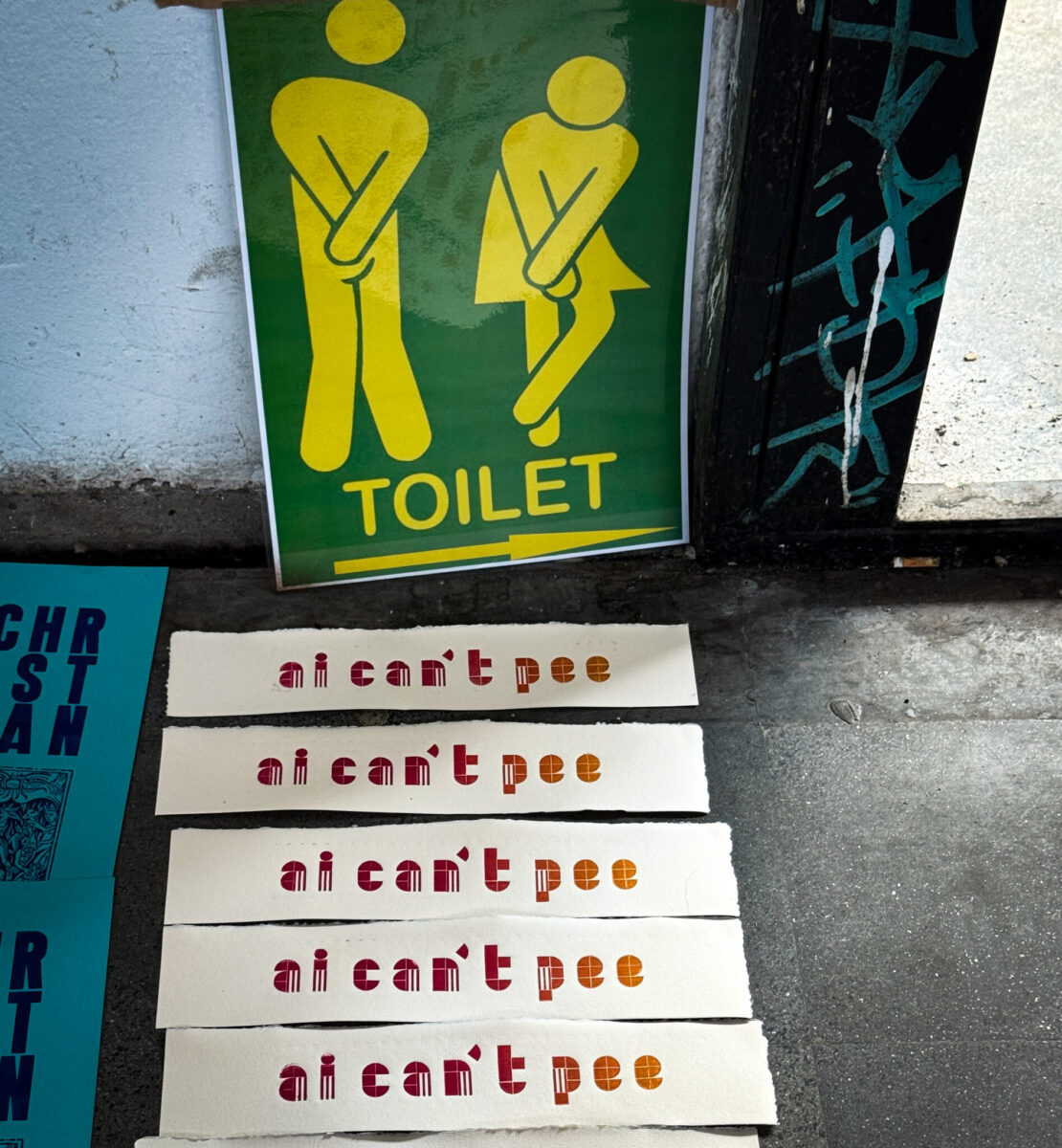
Silvia Potenza
Shah
Change bad things into good things
Milano, Italy
How long have you been printing?
In 2021
Describe your first encounter with letterpress
I hung around at Letterpress Workers in september 2022 at Leoncavallo, as I know Claudio Madella (Goodtypes) since 1999, and he invited me to come and have a look, because I had just started experimenting with printing the year before.
But my very first encounter has been in the early '80 when my father received many old boxes of big wood type characters as a gift. Then I lately had to give them away, but I kept some items with the idea one day to start using them. So, after 40 years, I did!
Where did you learn?
I just finished attending a couple of courses held by Claudio Madella, during the last year, and of course I learnt a lot during the latest editions of letterpress workers which I attended as a helper, and sometimes as a photographer/videomaker
Who was your most influential teacher?
I had a few at the graphic design school: Bruno Munari, Umberto Fenocchio (Lettering) and Romano Barboro (Typography)
What super power would you like to have?
To change bad things into good things, and irony, of which I definitely lack
Do you prefer to work alone or with others?
Both. When I'm alone I've got more time to focus on errors and refining the work, but working with others is unbeatable for so many reasons like growing, sharing, communication, fun and it's sooo powerful...
What do you most value in your friends?
That they are there
When do your best ideas occur to you?
In the early morning when I'm just awake and I haven't opened my eyes yet.
If you were to die and come back as a typeface, which would it be?
Any typeface with flourish and waves, so I guess some Art Nouveau type like Arnold Böcklin
What tool do you use more often than any other?
Pencil and Mac
What books are currently on your nightstand?
On my nightstand there is an indecent pile of books that I pretend to have the time to read.
Bodies of Water (Astrida Neimanis), Sea change (Sylvia Earle), and Dada - arte e antiarte (Hans Richter) are those I wish to finish by the end of summer. In the meantime, other titles will join the pile
If you could study with any printer throughout history, who would it be?
At the moment Alan Kitching, as I'm still not cultured enough on typography history.
If you have your own shop, what equipment do you own?
I currently just have a mini etching open press printer, 7,5 × 23 cm, a postcard size open press printer and a A4 press. I'm forced to print in small size, because I haven't got space enough for a proper print shop
If you could change one thing about your shop, what would it be?
To have more room to move, add a little Boston press and a case for some type set.
When and where are you the happiest?
When I'm in the ocean.
What is your greatest fear/worry?
That we, as humanity, won't be able to reverse the wrong directions we have taken in terms of climate and justice
What do you think is useful about what you make?
Make people think and enjoy doing it
What’s your day job?
Photographer
Do you use any other techniques or media besides letterpress?
Lino cut, cyanotype, lego dots.